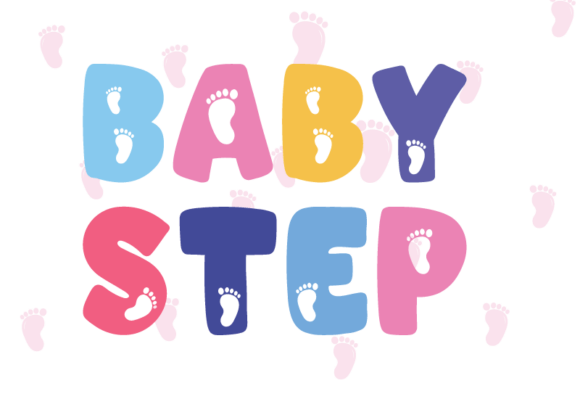
Discovering the Joy of Hand-Drawn Typography
Do you remember the carefree days of scribbling in your notebook, letting your imagination run wild with every scribble and swirl? For many of us, those innocent moments of creative freedom are a cherished part of our childhood. Now, imagine capturing the essence of that unbridled joy in a font that can transport you back to those happy times.
Meet the Baby Step Font, a delightful typographic creation that embodies the spirit of childhood. Designed to radiate playfulness and vibrancy, this font is a must-have for designers looking to add a touch of whimsy to their projects. With its unique, hand-drawn feel, the Baby Step Font is sure to bring a smile to the faces of both designers and end-users alike.
Baby Step Font Key Features
- Font Size: The font is designed to be highly legible at a wide range of sizes, from 8pt to 24pt, making it suitable for various applications, including body text, headings, and display typography.
- Unique Characteristics: The font features a unique blend of modern and classic elements, with subtle rounded edges and a warm, friendly feel that makes it perfect for use in children’s books, educational materials, and other applications where readability and approachability are key.
- Language Support: Baby Step Font includes a comprehensive character set, supporting a wide range of languages, including Latin, Cyrillic, Greek, and many others, making it a versatile choice for global applications.
- Font Weight and Style: The font is available in multiple weights, from Light to Bold, as well as in Italic and Oblique styles, allowing designers to create a wide range of visual effects and emphasize key information.
Baby Step Font Review
I’ve had the chance to work with the Baby Step Font, and overall, it’s a solid choice for projects that require a playful yet approachable vibe. ✨
Here are some aspects where it shines:
- Unique character set: The font’s quirky design elements add a lot of character to any text it’s used in.
- Legibility: Despite its playful nature, the font is still easy to read, even at smaller font sizes.
- Flexibility: Baby Step Font works well in a variety of contexts, from digital interfaces to print materials.
- Overuse: The font’s playful design can quickly become overwhelming if overused. Be mindful of how you apply it to avoid visual fatigue.
- Limited expressiveness: While the font has a lot of personality, it may not be the best choice for projects that require a more serious or professional tone.
Overall, I’d say the Baby Step Font is a great choice for projects that need a lighthearted, approachable feel. Just be sure to use it thoughtfully and balance it with other design elements to avoid overplaying its quirky charm. ⚠️
For the most effective use of Baby Step Font, use it for:
- Titles and headings to create visual interest.
- Body text to add a touch of elegance.
- Branding and logos to create a consistent look.
Remember to pair Baby Step Font with other fonts that complement its unique style for a visually appealing design.